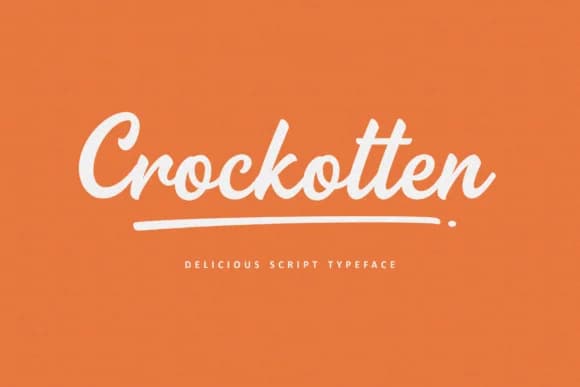
Picture yourself addressing envelopes for a wedding suite or laying out gift tags for handmade products. Crockotten, created by typealiens, is a script font that brings genuine warmth to your work without the stiffness that often comes with digital letterforms. The fluidity here actually works as designed. You could be building a boutique cosmetics brand identity, styling restaurant menus, or hand-lettering social media for independent makers. This font adapts to whatever you're working on.
Script fonts can feel either too rigid or too loose, but Crockotten finds the middle ground between both extremes. It keeps legibility strong while still maintaining that human touch people respond to. Greeting card designs, product label suites, custom monogram work, and small business logos all benefit from its distinctive character. The font includes useful swash variations that give you multiple creative options without requiring complicated layering or extra workarounds.
What really sets it apart is how well it scales across multiple applications. It reads just as well on a large sign or banner as it does on a business card or envelope. That consistency matters when you're building cohesive brand systems across varying mediums and contexts. Get Crockotten on Creative Fabrica and add it to your working collection.
Crockotten Font is a script font that shines as a display or heading face. Pair it with a clean sans-serif or serif font for body text β the contrast creates a clear hierarchy while the two styles stay balanced and easy to read.
Crockotten Font